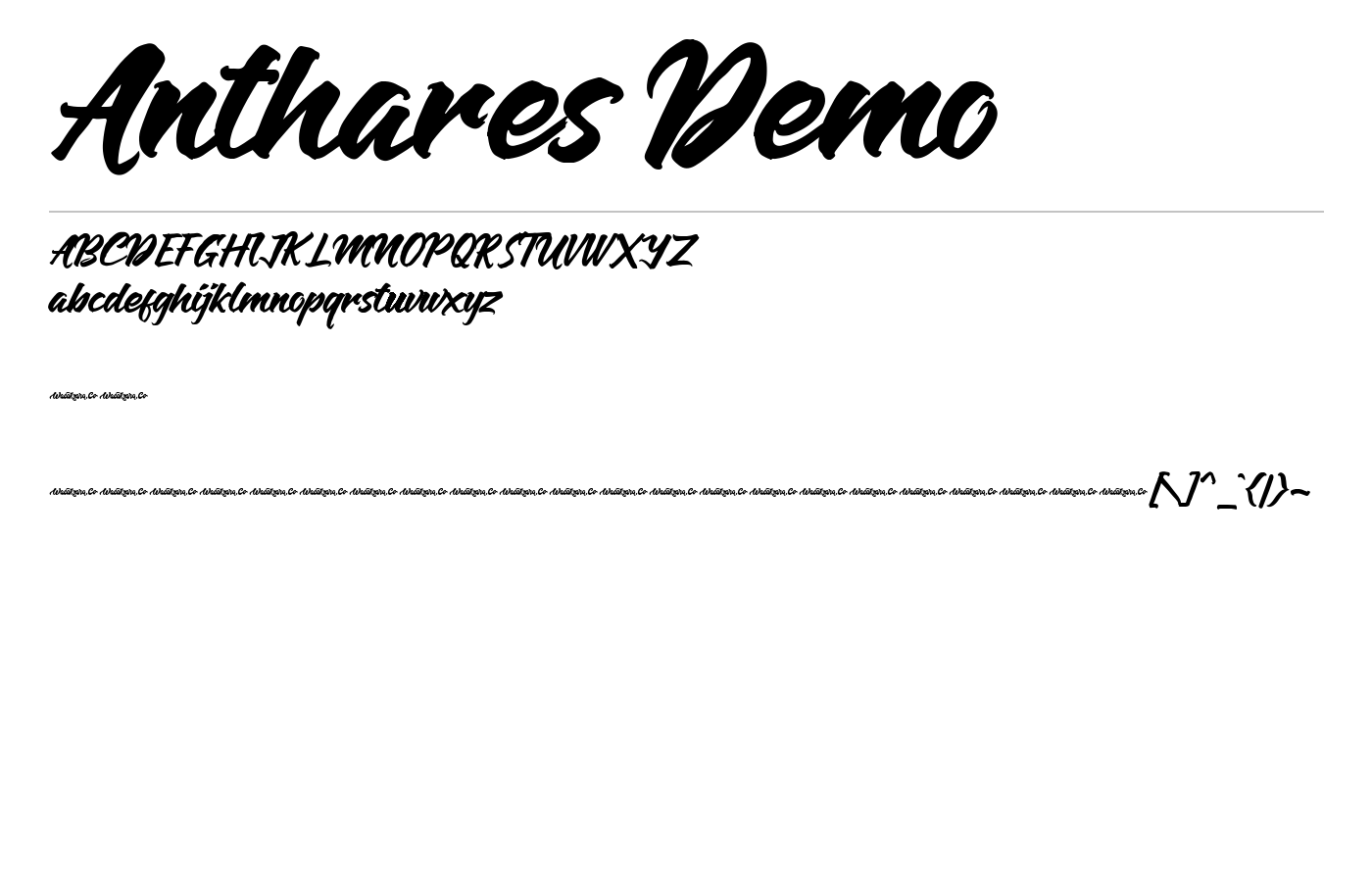
Anthares Demo is a bold, expressive script font with a dynamic, hand-painted feel, characterized by smooth, flowing strokes and a strong contrast in weight. Its casual yet elegant style makes it ideal for creative branding, invitations, or headlines where a personal, artistic touch is desired. This font brings energy and personality, perfect for designs that need to feel lively and authentic.
Anthares Demo Font
About Anthares Demo Font
| Font family | Anthares Demo Font |
| Designer | Aliv Pandu & Hamam Jauhari |